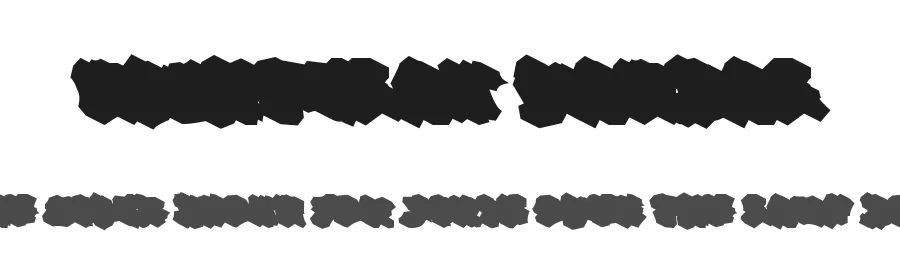
About Miss Terious Font
BOO! Here's my new font, Miss Terious... Well, actually, I wanted to call it Mysterious, as simple a that, but I guess it was too simple. The result, a funky new name for a girl! Terious... yeah... not so cool after all. Anyhoo, this one doesn't include doodles, but it does look like you're scratching a scratch card from Zombie Tsunami, right? Oh well, enjoy this detective-inspired font! Hope ya like it! :)
Miss Terious Font